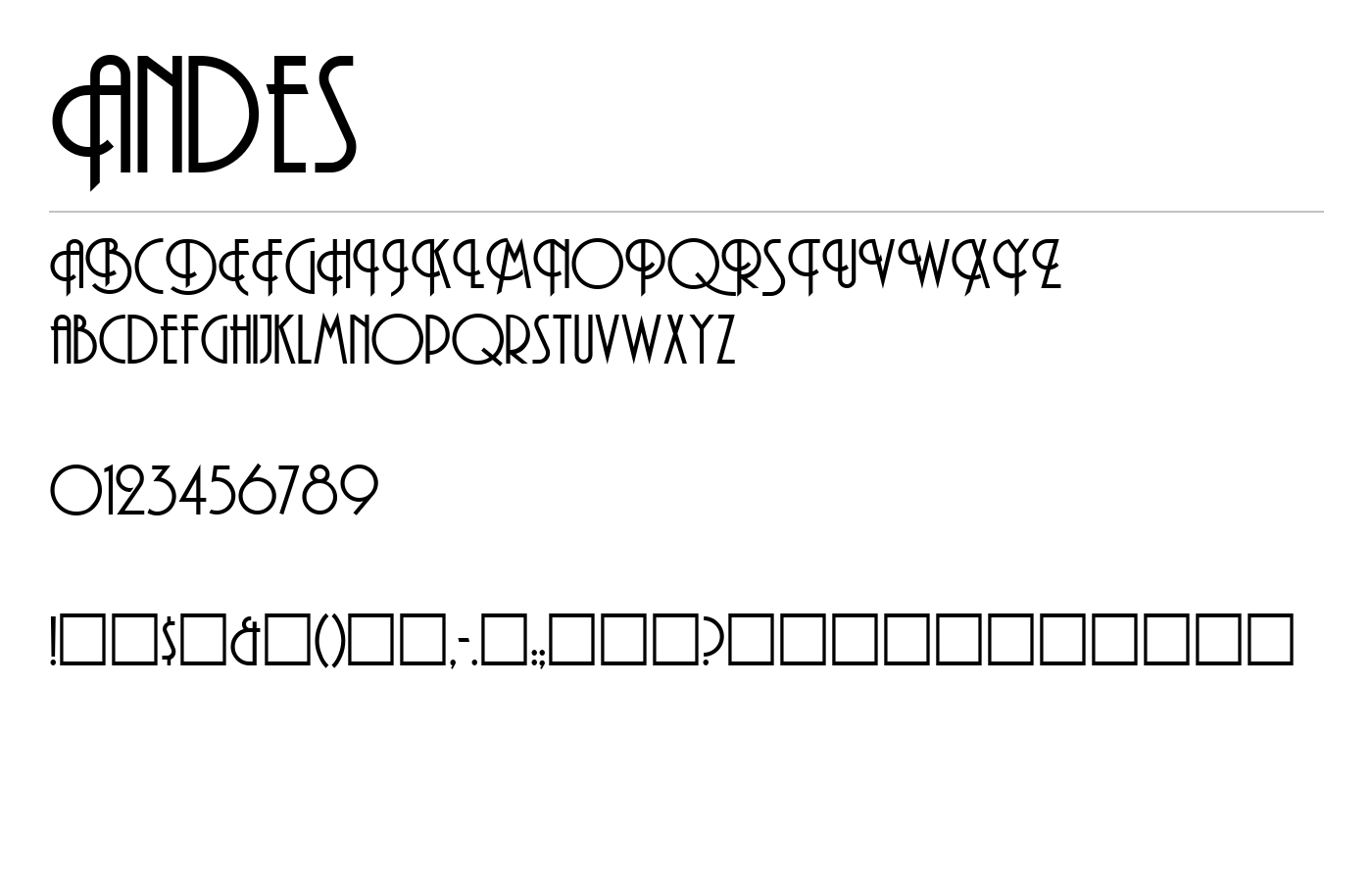
Andes Font is a sleek, high-contrast sans serif typeface with an elegant Art Deco-inspired style, featuring tall, narrow letterforms and unique, decorative details like curved terminals and stylized strokes. Its refined and sophisticated appearance makes it perfect for luxury branding, fashion headlines, and editorial designs where a striking, vintage-modern look is desired.
Andes Font